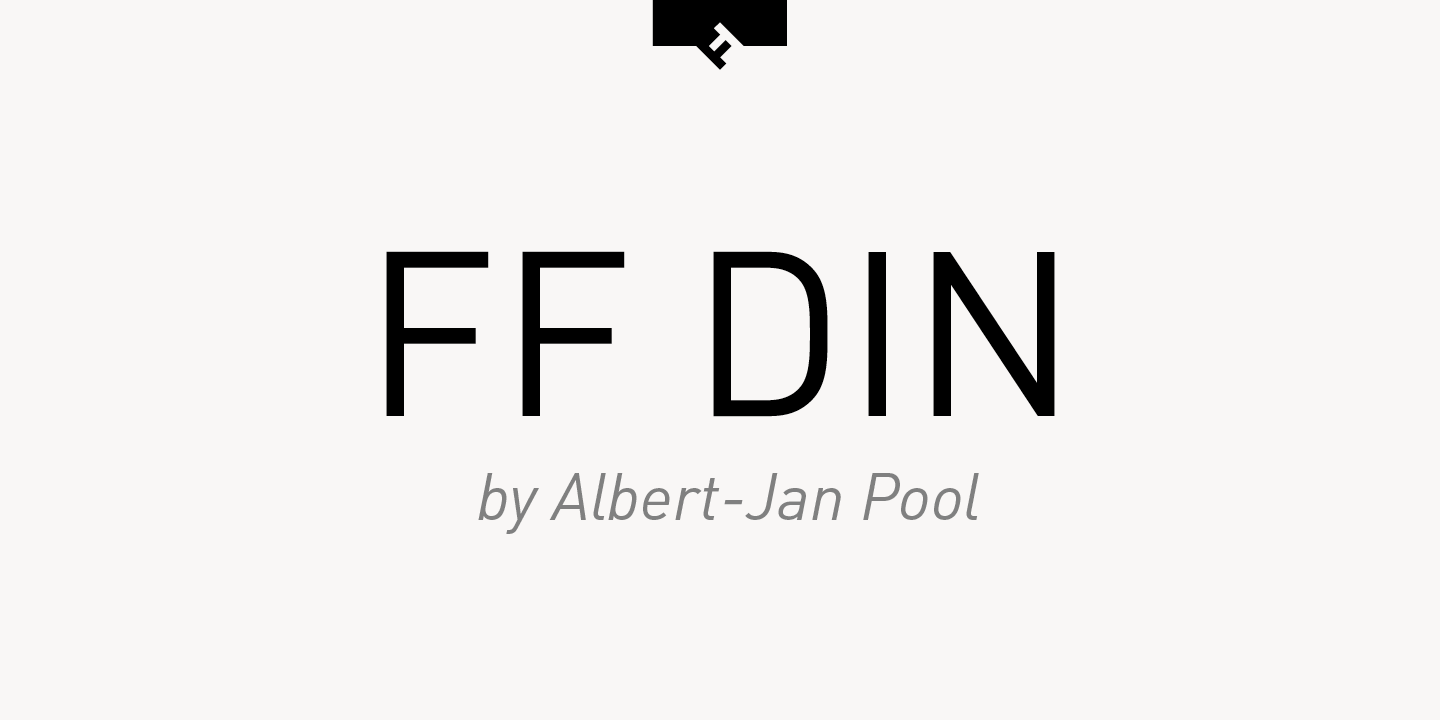
The FF DIN Font is an iconic and exceptionally versatile sans-serif typeface, widely recognized for its clean, industrial aesthetic and outstanding legibility. Originally based on the German industrial standard DIN 1451, its modern revival by Albert-Jan Pool has made it a staple in countless contemporary designs. Imagine its clear, robust forms providing a solid foundation for corporate branding across various sectors like business, finance, and industrial design. It's an excellent choice for crisp, authoritative signage systems, detailed technical documentation, and dynamic web interfaces. FF DIN Font also excels in editorial design, giving magazines and brochures a modern, structured feel, and it's a popular choice for everything from government communications and educational materials to entertainment and sports branding. Its ubiquitous presence in modern design underscores its adaptability, ensuring your message is conveyed with clarity and unwavering professionalism.
What makes FF DIN Font so exciting is its remarkable balance of functionality and subtle character. Unlike many sans-serifs, it possesses a unique warmth and approachability, despite its industrial origins. This makes it incredibly versatile, capable of conveying both serious authority and friendly professionalism. Its exceptional legibility, even at small sizes and in demanding environments, is a major reason for its widespread adoption across diverse industries. It’s more than just a typeface; it’s a design workhorse that consistently delivers clarity, efficiency, and a timeless modern aesthetic. Designers consistently praise its robust family, allowing for precise typographic control and the creation of highly organized and visually appealing layouts.
The FF DIN Font family is truly extensive, offering a vast array of weights, styles, and specialized variants that cater to virtually any design need. Beyond the core FF DIN Regular, the family typically includes a comprehensive spectrum from ultra-thin weights like FF DIN Thin and FF DIN ExtraLight, through FF DIN Light, FF DIN Medium, FF DIN Bold, and up to heavy weights like FF DIN Black. Each of these weights usually comes with corresponding FF DIN Italic versions. Furthermore, the family often includes FF DIN Condensed styles, also in multiple weights and italics, providing solutions for space-efficient typography. You might also find specialized versions like FF DIN Pro, FF DIN Paneuropean (with extended language support), and even thematic variants like FF DIN Arabic, FF DIN Stencil, and FF DIN Slab, demonstrating its incredible adaptability and depth. This extensive range of family members allows designers to create intricate and harmonious typographic systems, maintaining a consistent and powerful aesthetic across all elements of a project.